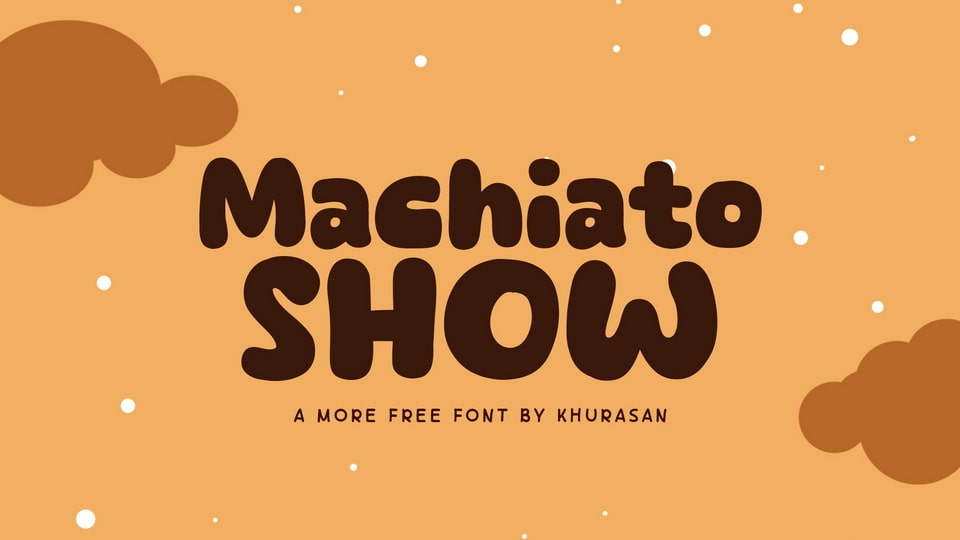
Download Machiato Show font, a funny and playful hand-drawn cartoon typeface. Each character in this whimsical font is crafted with a mischievous flair, perfect for adding a touch of fun to comic strips, children’s books, or any project that craves a lighthearted, animated spirit.